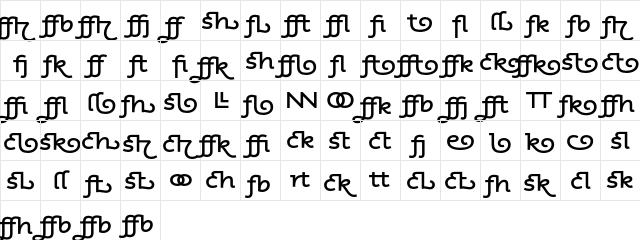
AspectLigatures Bold
Design Context for AspectLigatures Typeface
AspectLigatures takes a measured approach to typography — its balanced proportions and neutral character make it a reliable workhorse for both digital and print work. The heavy weight commands attention and anchors typographic hierarchies.
Pro Tip: Use AspectLigatures in both headline and body roles to test its range before committing to a single application.